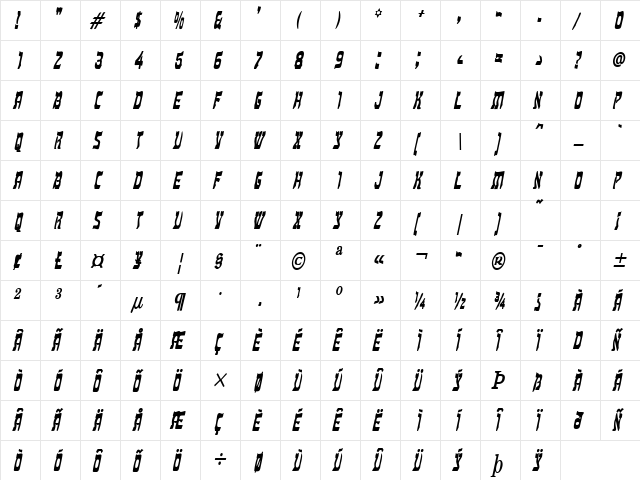
Kosher Thin BoldItalic
Design Context for Kosher Thin Typeface
Kosher Thin is a composed and adaptable typeface that performs quietly and consistently across a wide range of design contexts. The slanted form adds forward momentum and visual energy. The heavy weight commands attention and anchors typographic hierarchies.